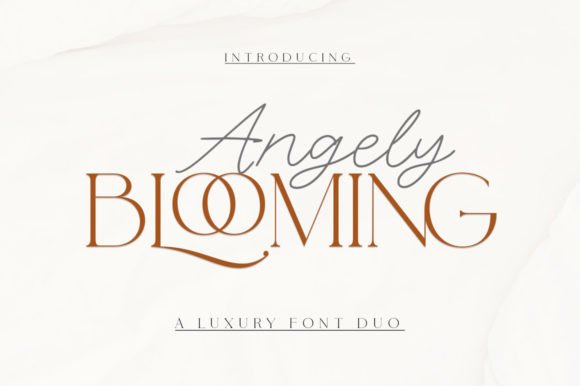
The Angely Blooming Font: A Designer’s Dream Come True
I’ll never forget the time I was working on a wedding invitation project, and my client asked for a font that was both elegant and playful. I scoured the internet, tried countless fonts, but nothing seemed quite right. That was until I stumbled upon the Angely Blooming Font. It was like a breath of fresh air – the perfect blend of script and serif, with a dash of magic. In this article, I’ll share my experience with this amazing font, its features, and how to make the most of it.
A Personal Review: What I Love About Angely Blooming
Here’s what makes Angely Blooming a standout font:
- ✨ Versatility: It comes in four versions – Script & Serif, making it suitable for a wide range of projects, from blog headers to wedding elements, t-shirts, and more.
- 💫 Magical Design: Each font has its own unique, whimsical design that adds a touch of personality to any project.
While Angely Blooming is an excellent font, there are a few things to keep in mind:
- 🤔 Pairing with Other Fonts: As with any script font, pairing Angely Blooming with other fonts can be a bit tricky. You may need to experiment to find the perfect match.
The Story Behind Angely Blooming
Angely Blooming was designed with the intention of creating a font that was both elegant and whimsical. The designer aimed to craft a font that would add a touch of magic to any project, from wedding invitations to branding materials. With its unique blend of script and serif, Angely Blooming is sure to delight designers and crafters alike.
| Font Name | Angely Blooming Font |
| Author | LetterFreshStudio |